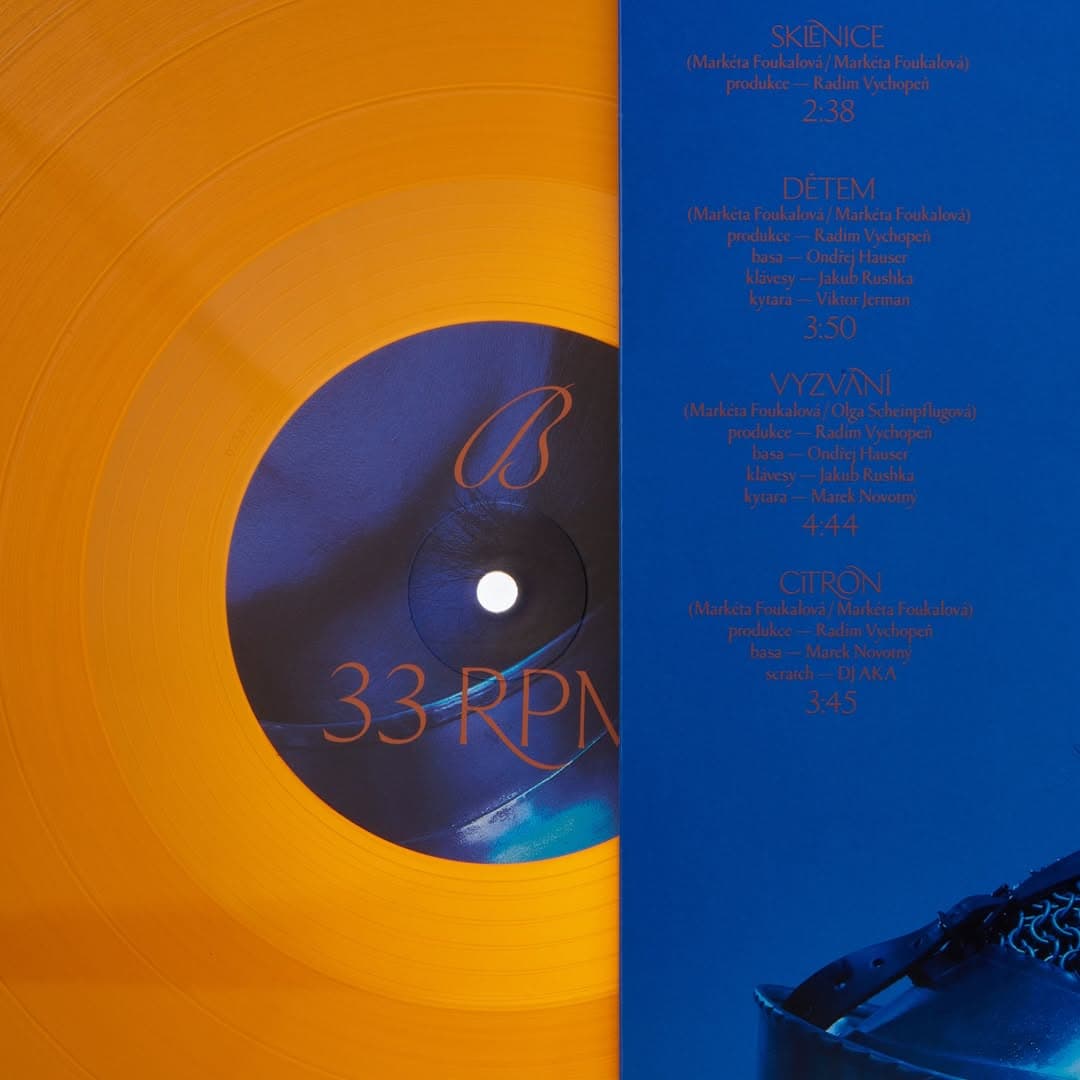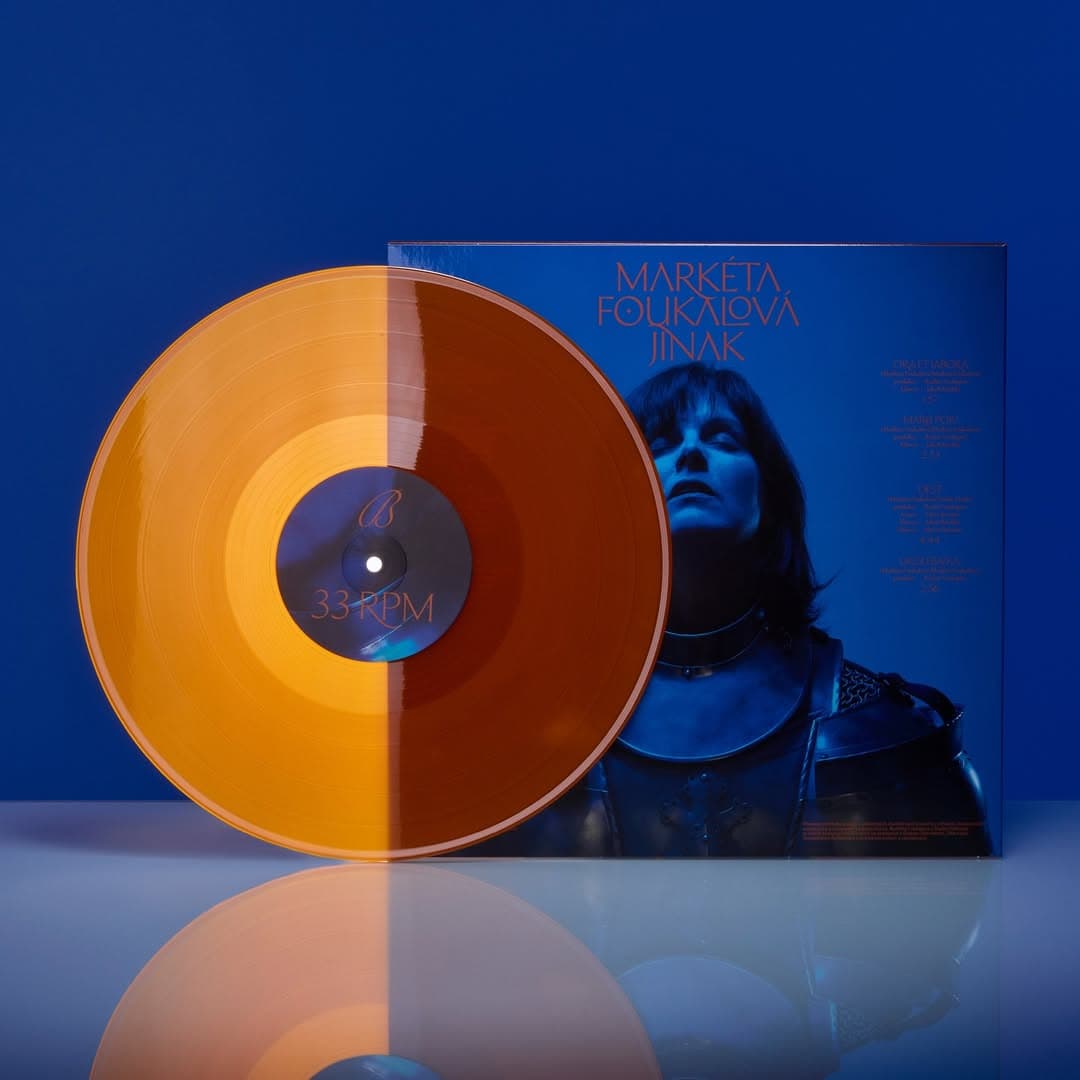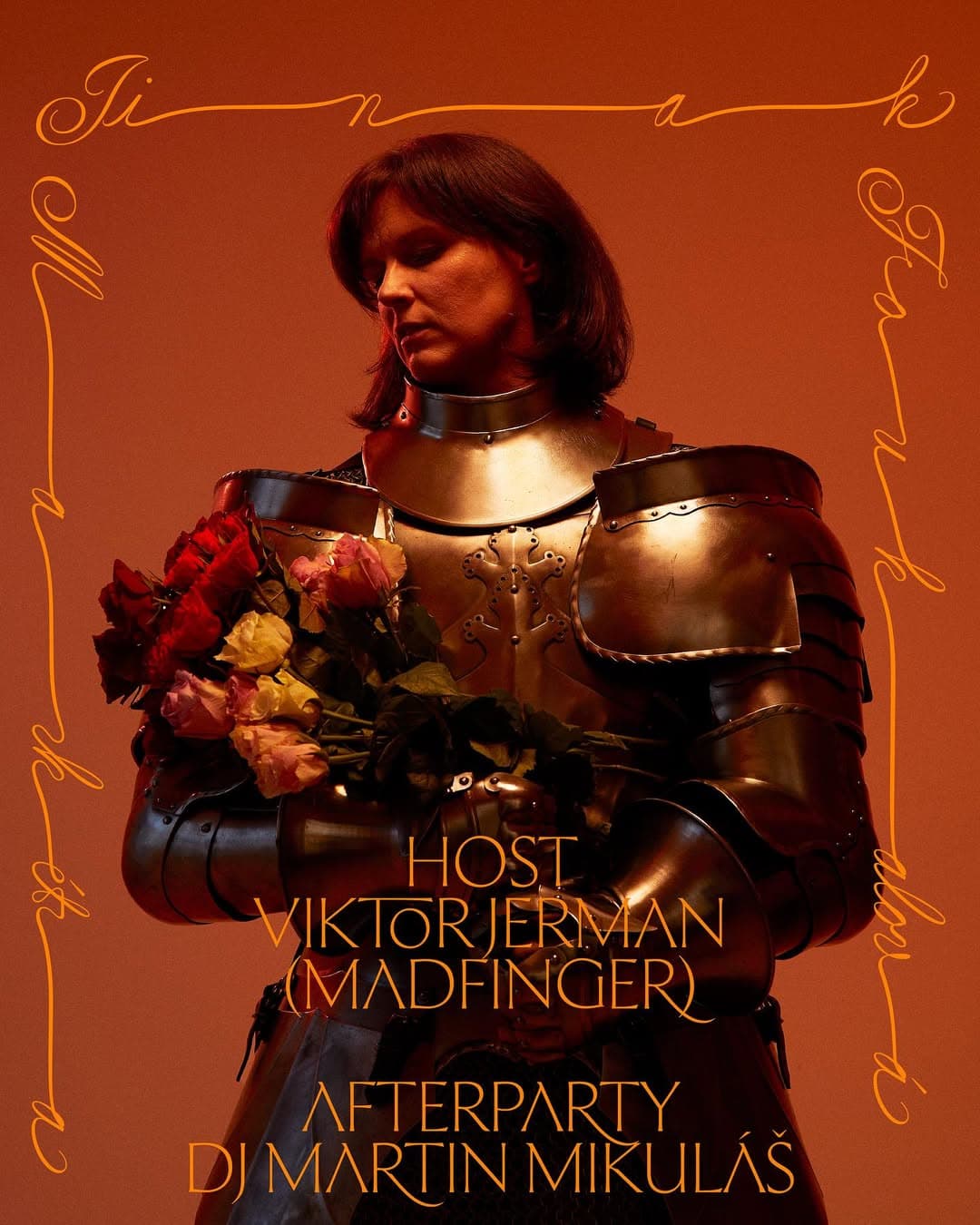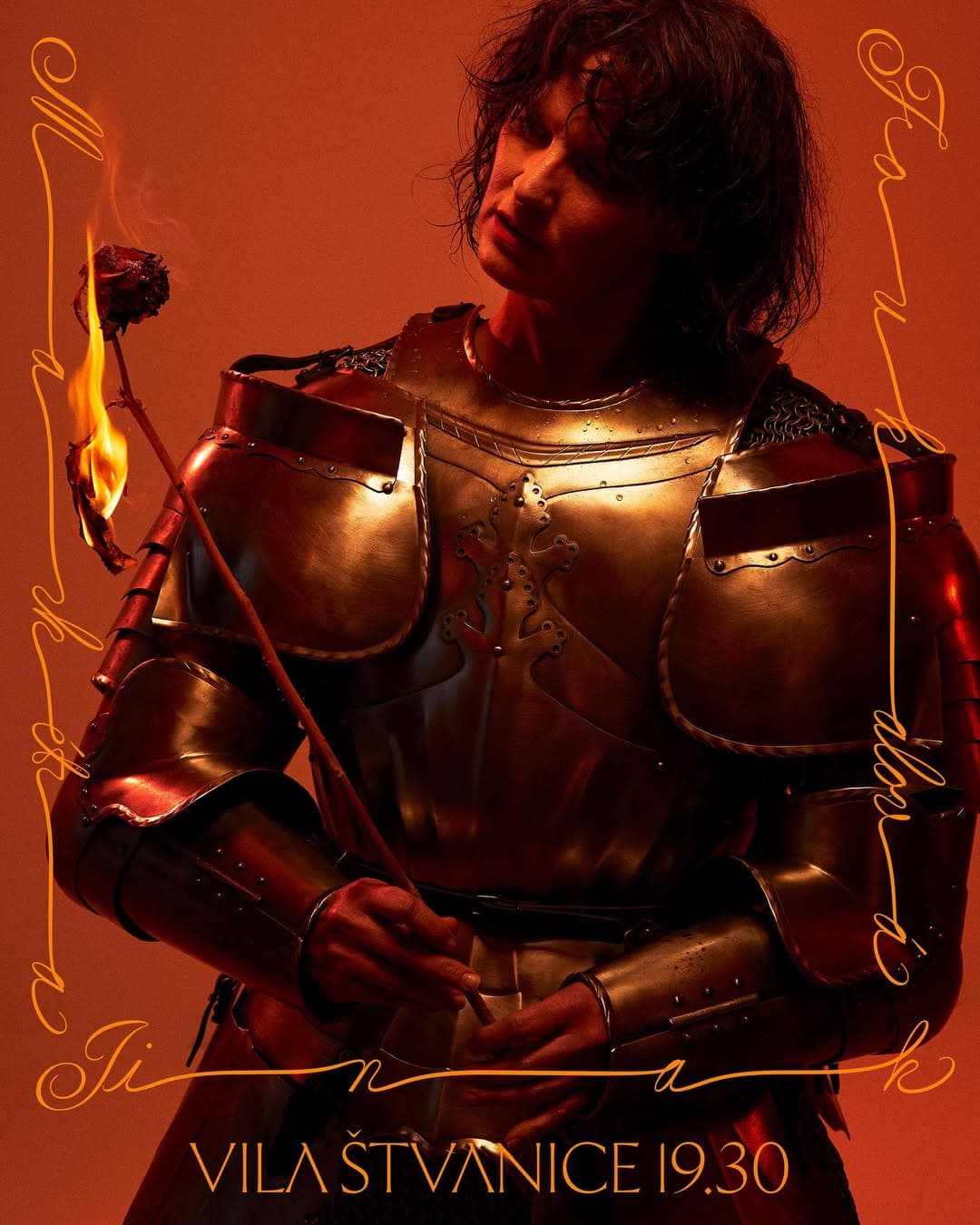
Czech singer and songwriter Markéta Foukalová released her debut solo album Jinak in 2025, marking a significant shift from her work as the frontwoman of Lanugo into a more intimate, author-driven practice. The visual language of the project, developed by Josefina Karlíková, using Ceraph & Cordier Script extends this sensibility into the graphic realm.
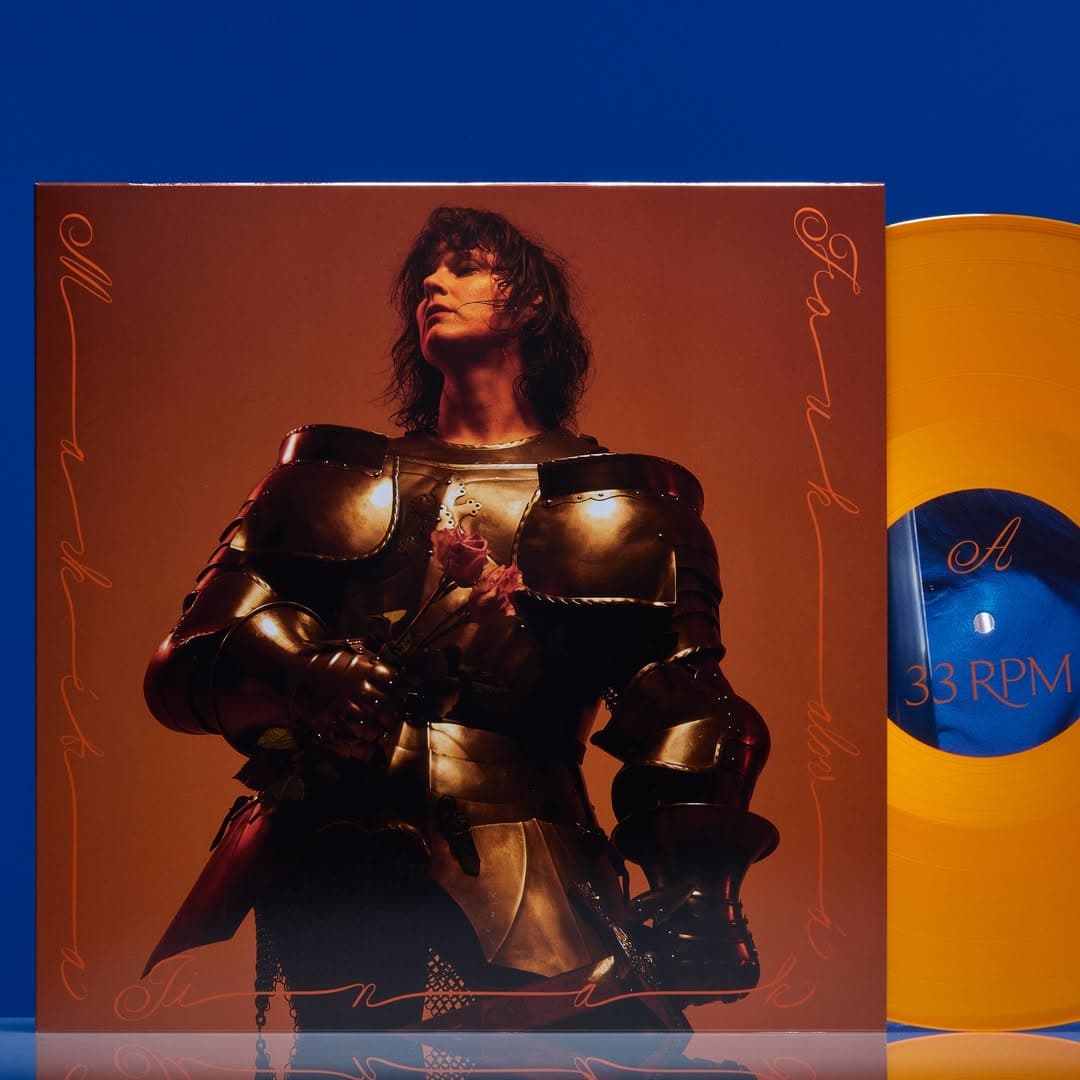
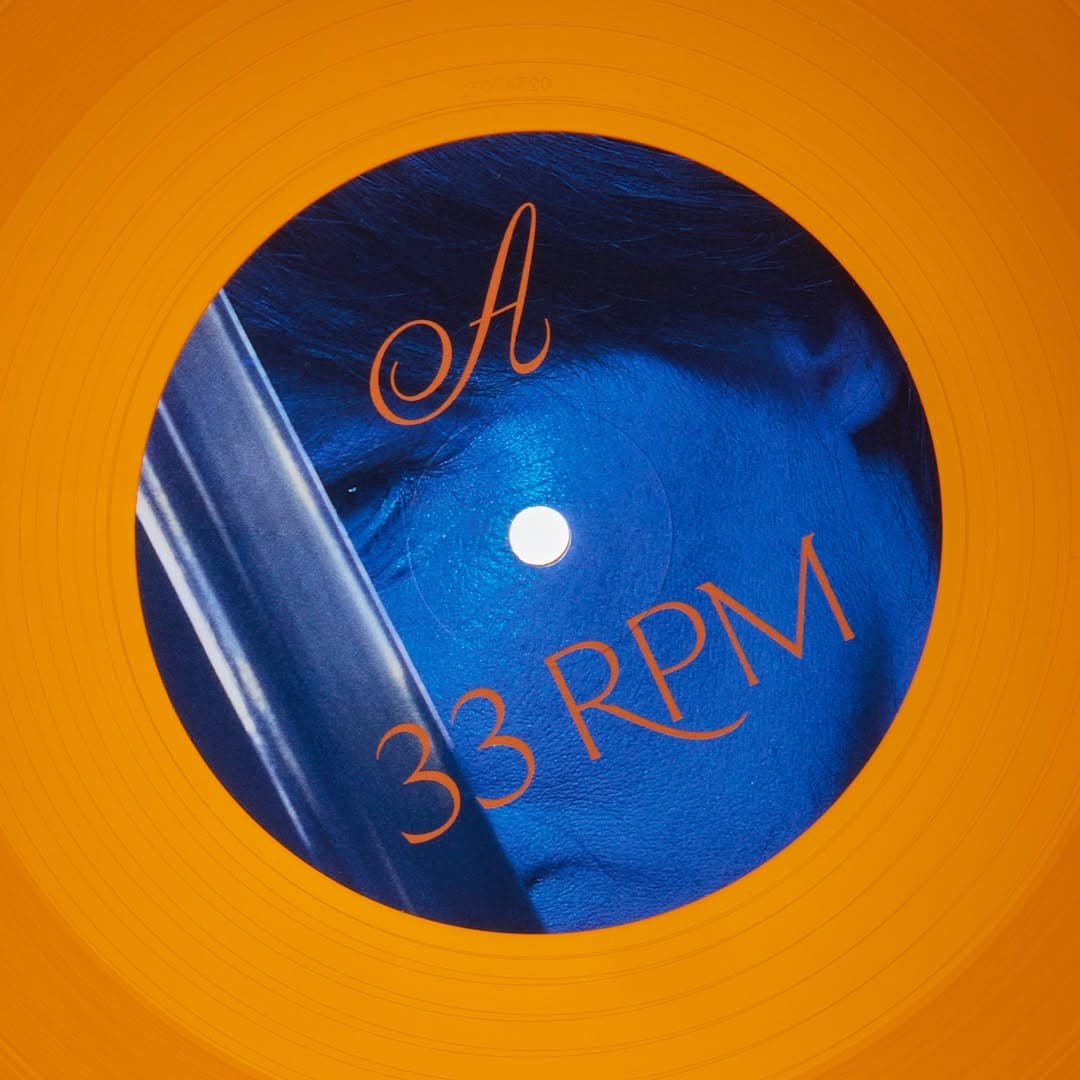
The album resists immediacy and commercial formulas, instead inviting a more active, reflective engagement from the listener. Her art direction combines the calligraphic dynamism of Cordier Script—rooted in 17th-century penmanship yet reinterpreted with expressive fluidity—with the sculptural elegance of Ceraph, a contemporary flared serif balancing classical structure and humanistic softness. Together, these typographic choices echo the album’s core tension between tradition and reinvention, intimacy and form.
Designer: Josefina Karlíková
Typeface: Ceraph & Cordier Script